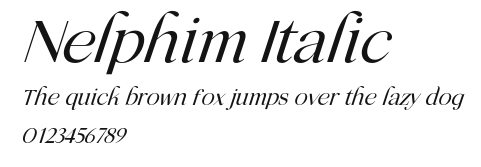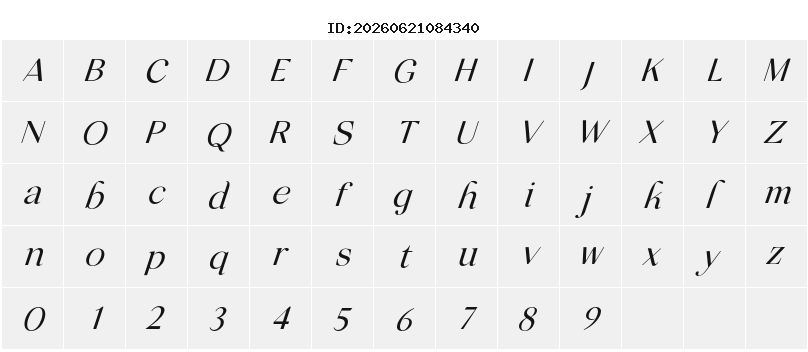
Nelphim Italic Preview
About Nelphim Italic.otf
Nelphim Italic.otf is a modern, elegant sans-serif font designed for ultimate readability and visual harmony. Perfect for branding, headlines, web design, and print materials.